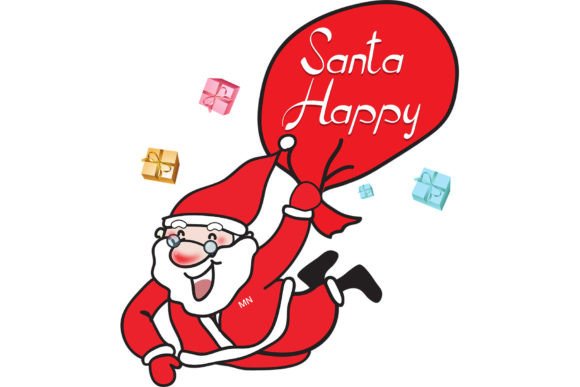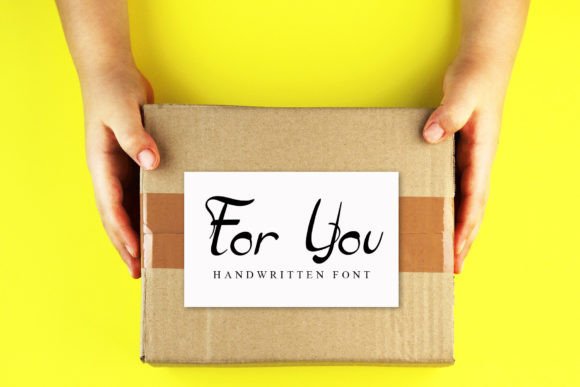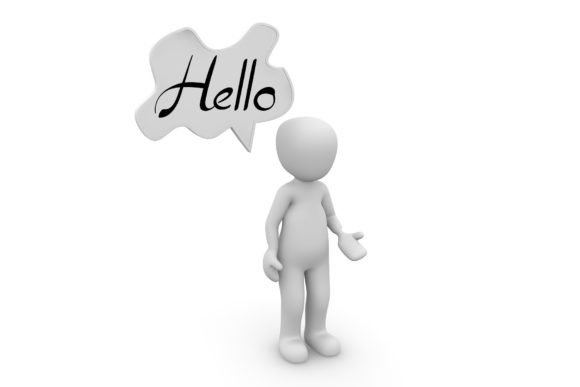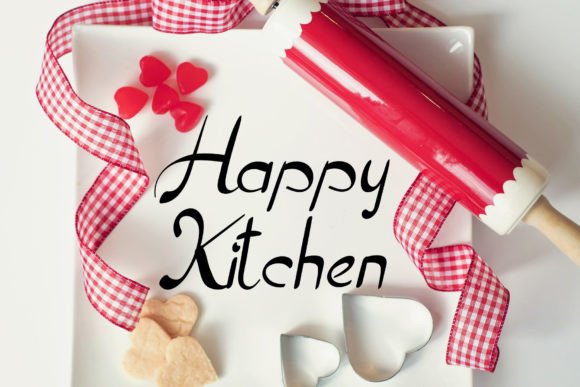
Jellita
About Jellita
Jellita is a unique and elegant font specially designed just for you. This font is made with a professional hand touch and is perfect for your projects. This font is suitable for greeting cards, wedding invitation cards, birthdays, and more.This font is also suitable for creative ideas such as school assignments or other important events. Apply this font with your creative ideas to make it look better.